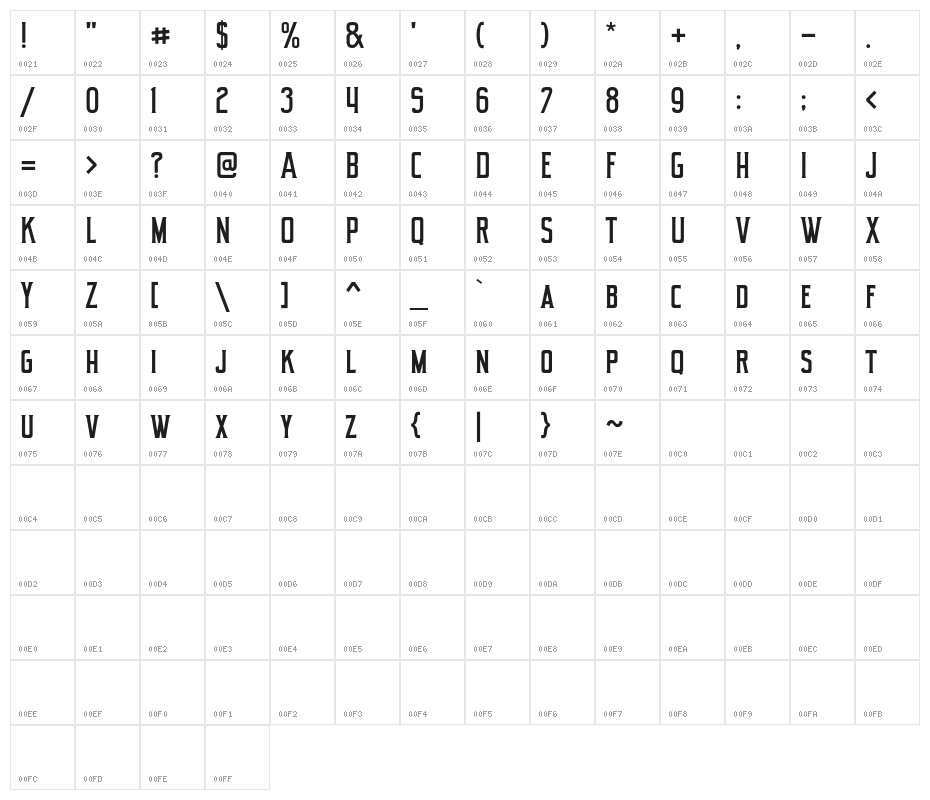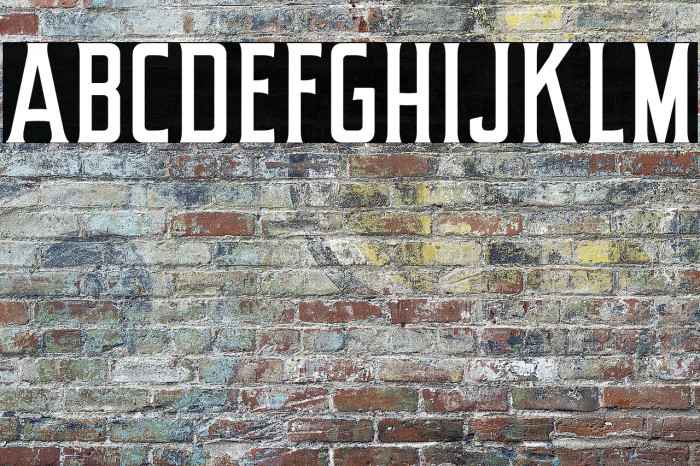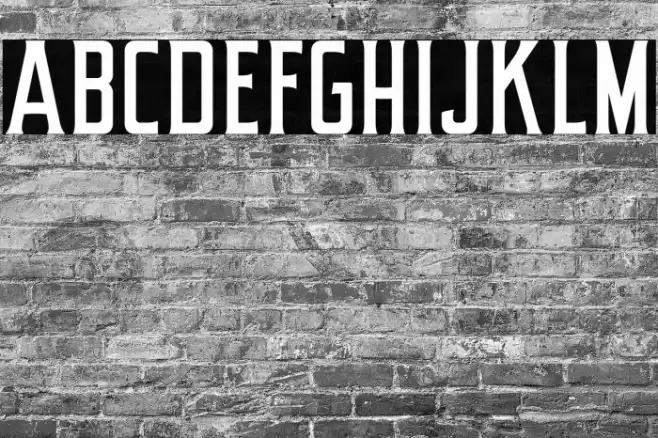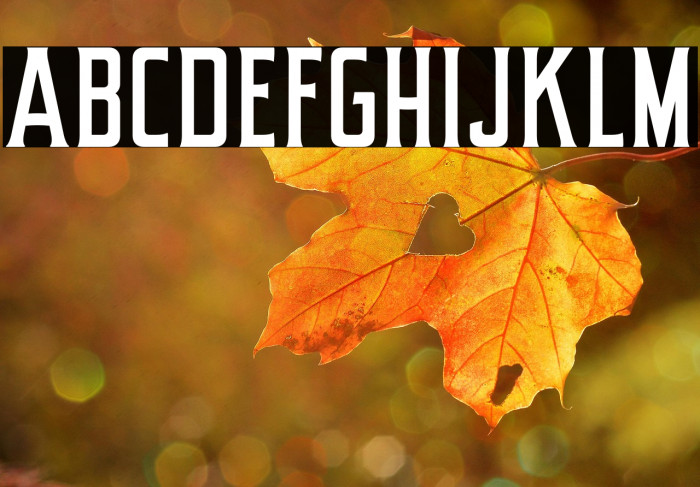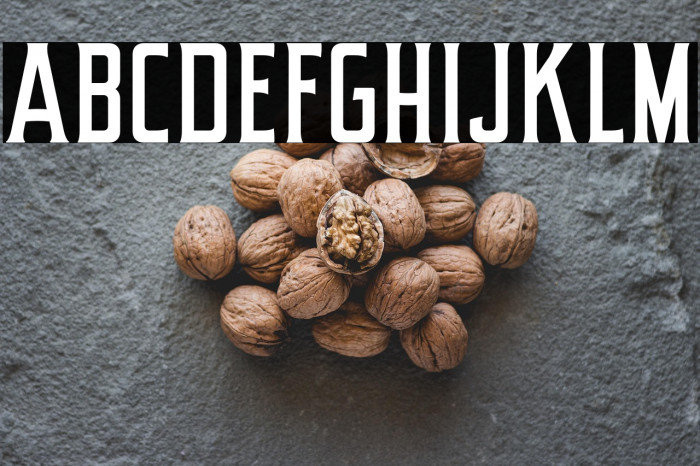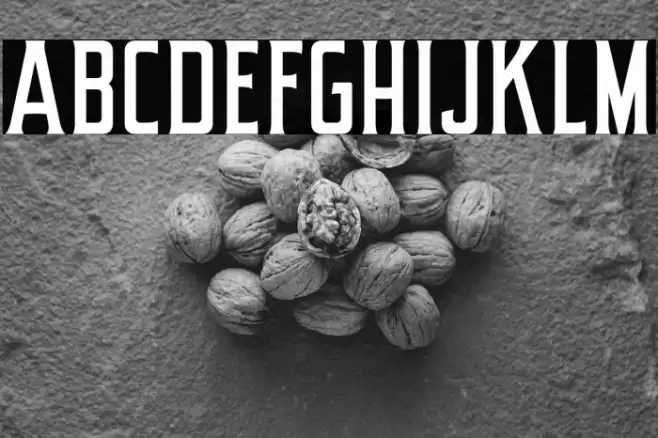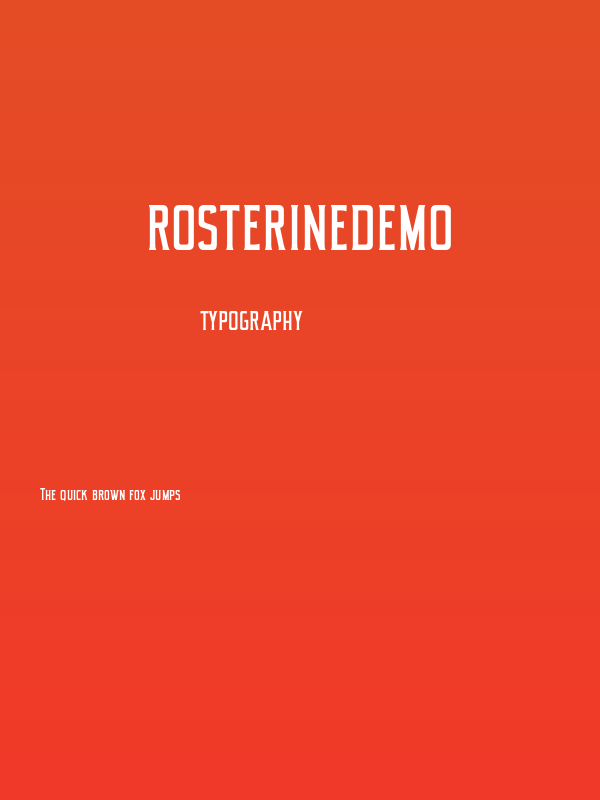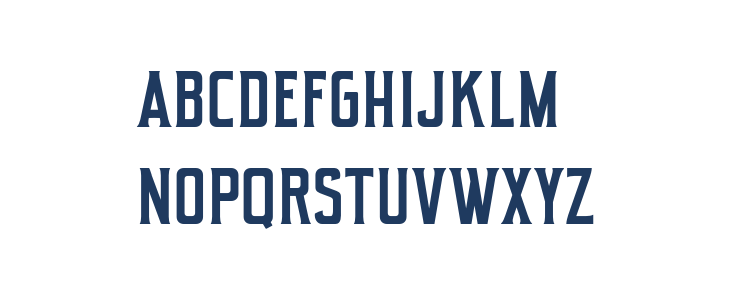
RosterineDEMO Font
RosterineDEMO Description
This font exhibits a strong, bold presence with its tall, narrow letterforms. The characters are designed with a consistent stroke width, giving it a uniform appearance. The uppercase letters are particularly striking, with sharp angles and a modern aesthetic. The lowercase letters maintain the same narrow structure, ensuring readability while preserving the font's distinctive style. The numerals are clear and well-proportioned, matching the overall design. Special characters are included, providing versatility for various applications. This font's clean lines and contemporary look make it suitable for a range of design projects.
| Proposed Projects | Ideal for branding, posters, headlines, and digital media where a strong, modern impact is desired. |